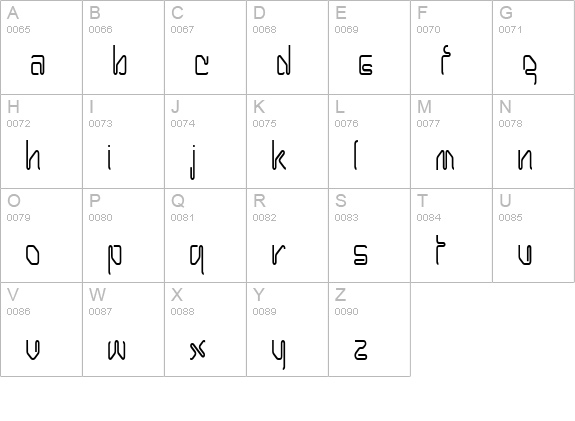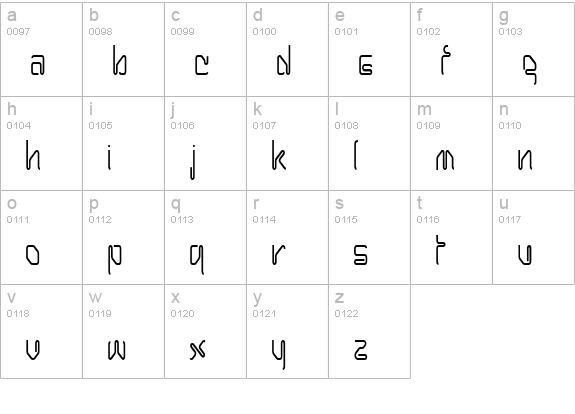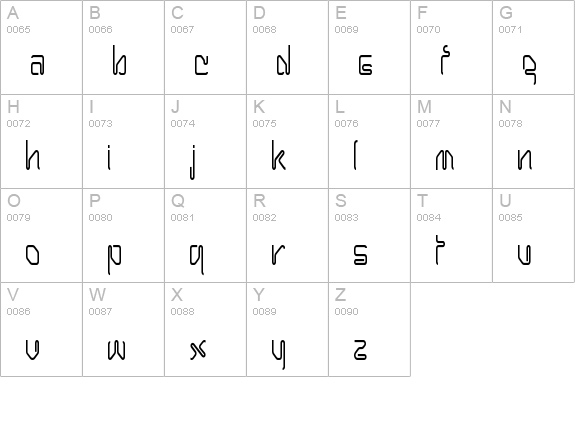
Hanger Condensed Normal is the standard, neutral, condensed-width variant in the Hanger typeface family \xE2\x80\x94 well suited to general body text, paragraphs, and standard typographic work.
Hanger Condensed Normal font is a sleek and modern typeface that exudes sophistication and professionalism. Its condensed design allows for maximum impact and efficiency, making it ideal for headlines, titles, and branding projects. The clean lines and geometric shapes of this font give it a contemporary and stylish appearance, perfect for adding a touch of elegance to any design. One of the best features of Hanger Condensed Normal font is that it is freely available to download at FontsMarket.com. This means that you can easily access and use this font in your projects without any cost. Whether you are a professional designer or a hobbyist, having access to high-quality fonts like Hanger Condensed Normal can greatly enhance your creativity and help you achieve stunning results. The versatility of Hanger Condensed Normal font is another reason why it is a popular choice among designers. Its condensed form allows for effective space utilization, making it suitable for various design applications. Whether you need to create impactful posters, eye-catching logos, or elegant invitations, Hanger Condensed Normal font can effortlessly meet your needs. Furthermore, Hanger Condensed Normal font is highly legible, ensuring that your message is conveyed clearly and effectively to your audience. Its clean and crisp letterforms make it easy to read even at smaller sizes, making it suitable for both print and digital media. In conclusion, Hanger Condensed Normal font is a versatile, sleek, and elegant typeface that is freely available to download at FontsMarket.com. Whether you are working on a professional project or a personal creative endeavor, this font can elevate your design and help you achieve outstanding results. So go ahead and explore the possibilities with Hanger Condensed Normal font today!